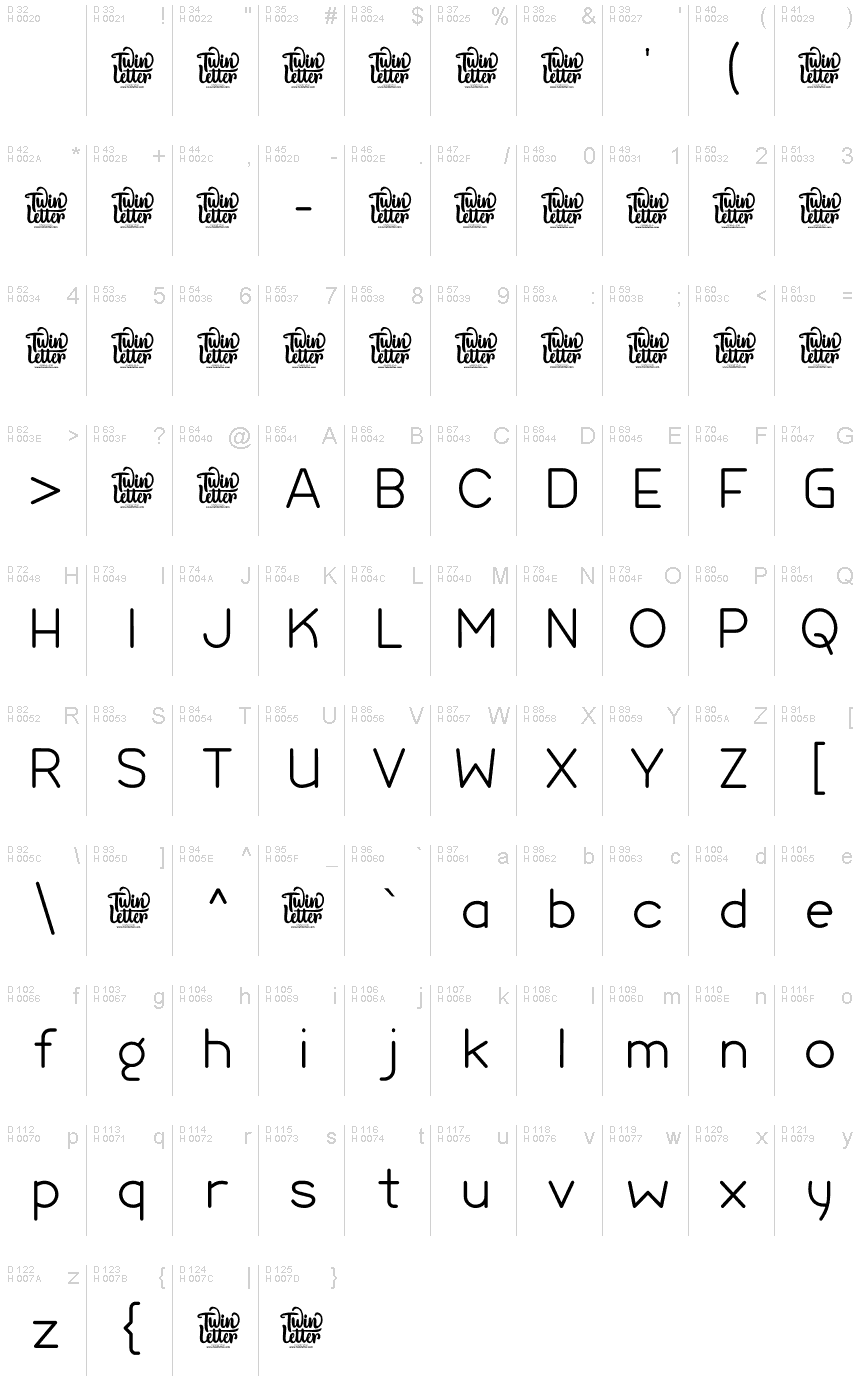
KIMORA Thin Personal Use
KIMORA Thin, designed by twinletter, is a stunning rounded sans serif font that exudes elegance and sophistication. Its light weight creates a delicate, refined look perfect for titles and headlines. This font is particularly suitable for branding projects such as fashion, beauty, and lifestyle industries. The softness of KIMORA Thin gives an air of femininity making it perfect for wedding invitations or event posters. This font works well with other weights in the KIMORA family to create cohesion in a project while bringing a unique personality to the design. With its versatility and beauty, KIMORA Thin will be sure to elevate any project it is used in.